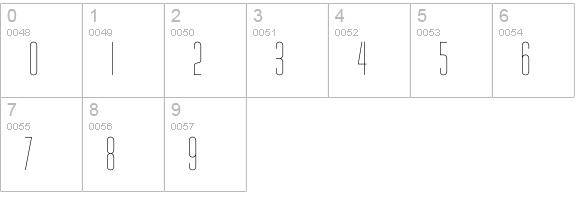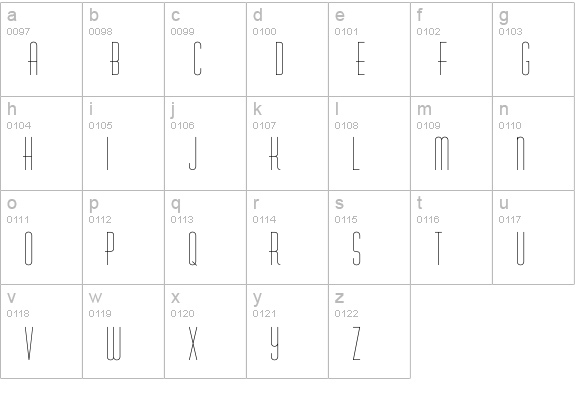
Rhyol Font Details
Rhyol font is a stunning typeface that effortlessly blends elegance and modernity. Its sleek and sophisticated design makes it perfect for a wide range of creative projects, from branding and advertising to web design and print materials. What sets Rhyol font apart is not only its impeccable aesthetics, but also its versatility. With a wide range of weights and styles, this font can adapt to any design concept, whether you're looking for something bold and attention-grabbing or subtle and refined. Rhyol font is the epitome of versatility and functionality, making it an excellent choice for both professional designers and hobbyists alike. Its clean lines and distinct letterforms ensure legibility at any size, while its unique personality adds a touch of flair to your projects. What's even better is that Rhyol font is free! That's right, you can freely download this amazing typeface at FontsMarket.com. No need to worry about breaking the bank or searching endlessly for the perfect font – Rhyol font is just a click away. So go ahead and take your designs to the next level with Rhyol font. Whether you're working on a logo, a website, or a magazine layout, this font is sure to elevate your project and leave a lasting impression. Download it for free at FontsMarket.com and let your creativity soar.